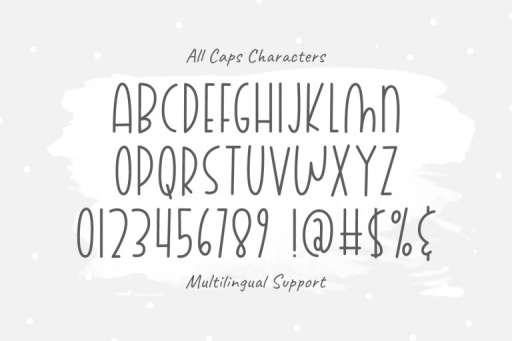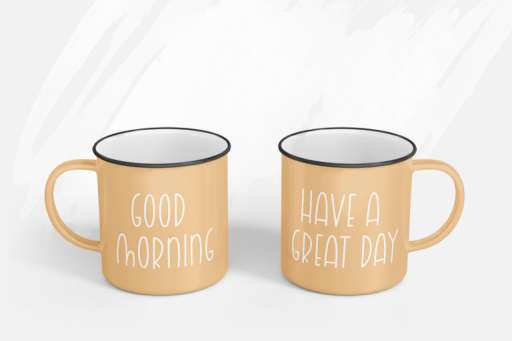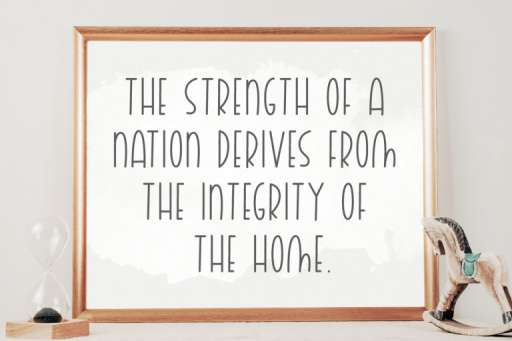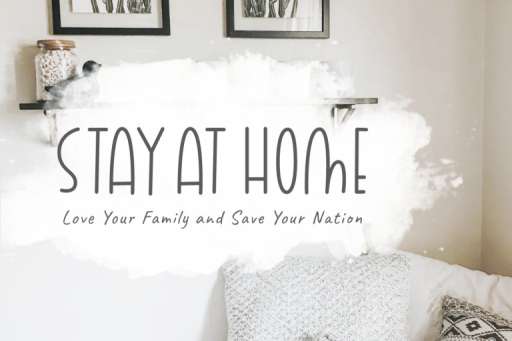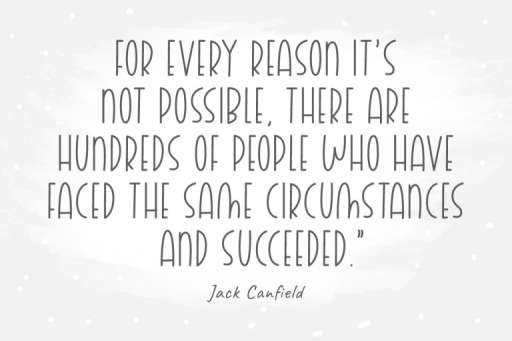
Calderock Regular
Calderock Font – Monoline Sans Serif
Calderock is a monoline style, tall and skinny letters which makes it easy to read. This font looks awesome for quotes, branding, T-shirt, website, blogs, children’s designs, svg designs, logos and more